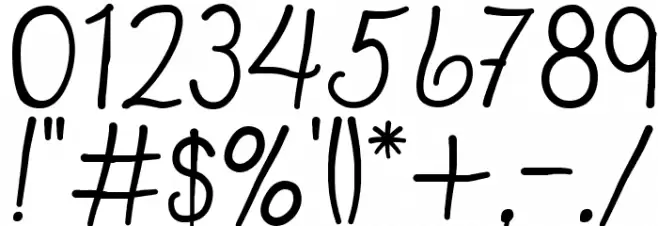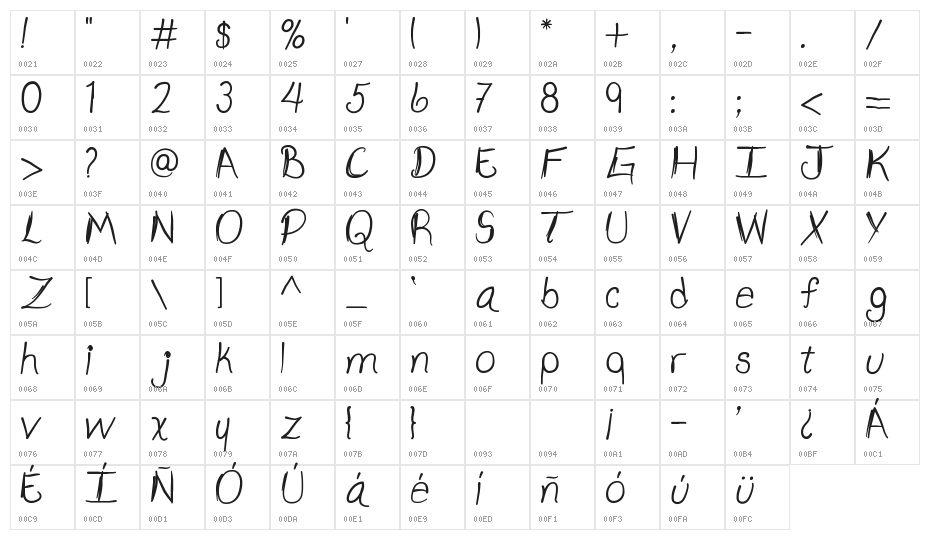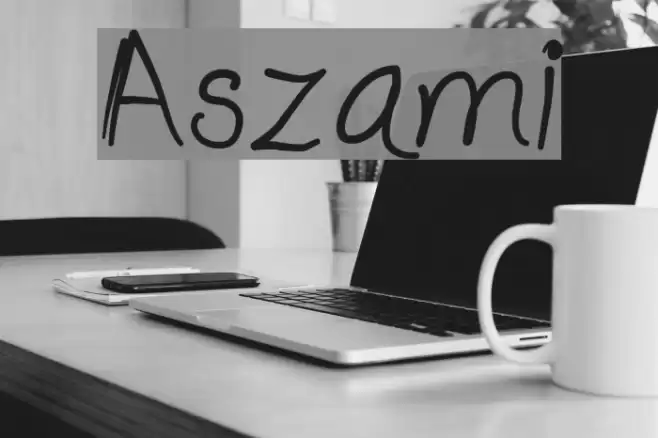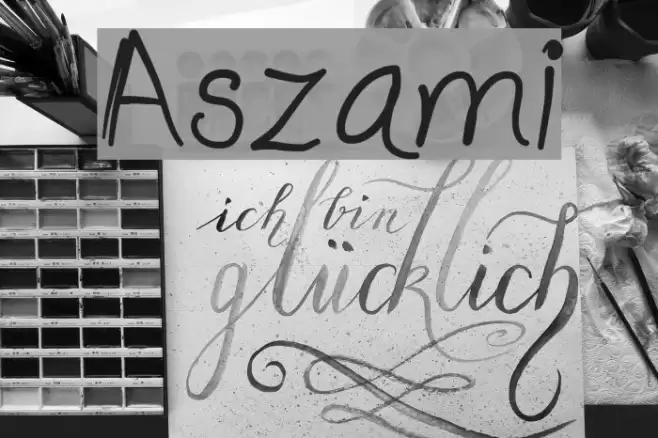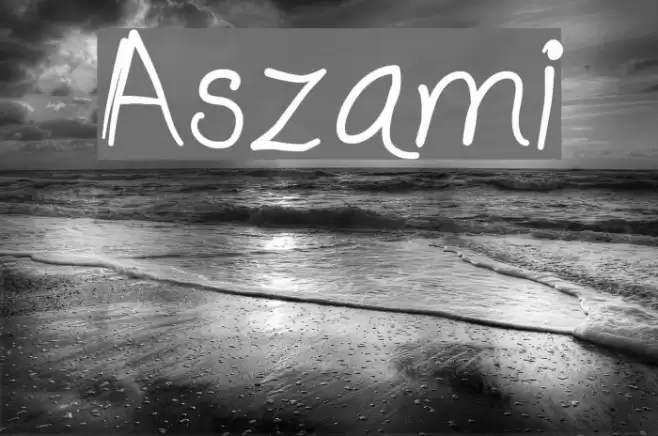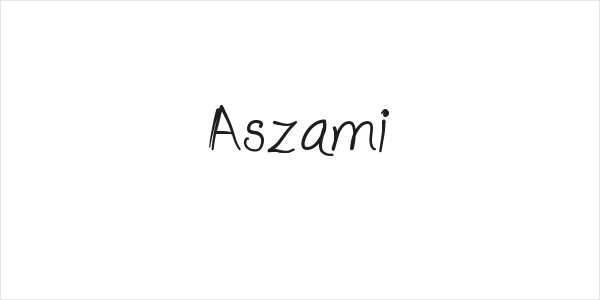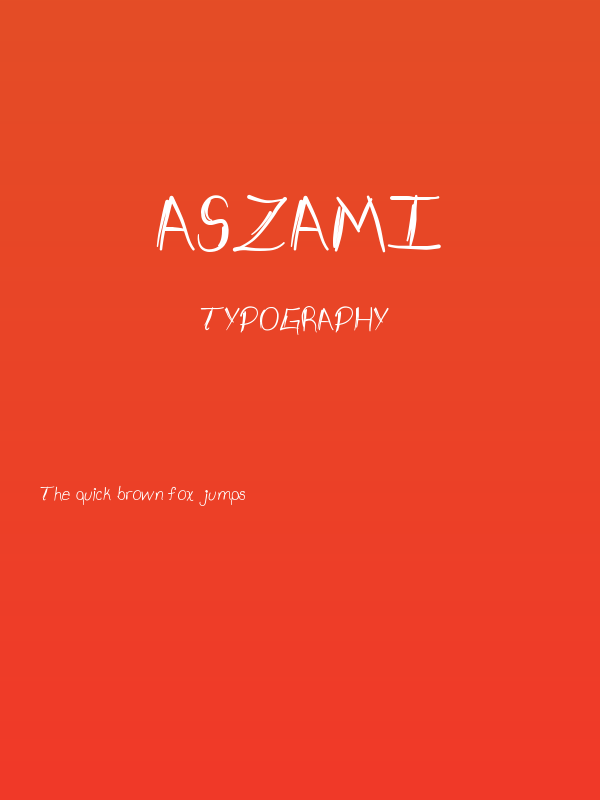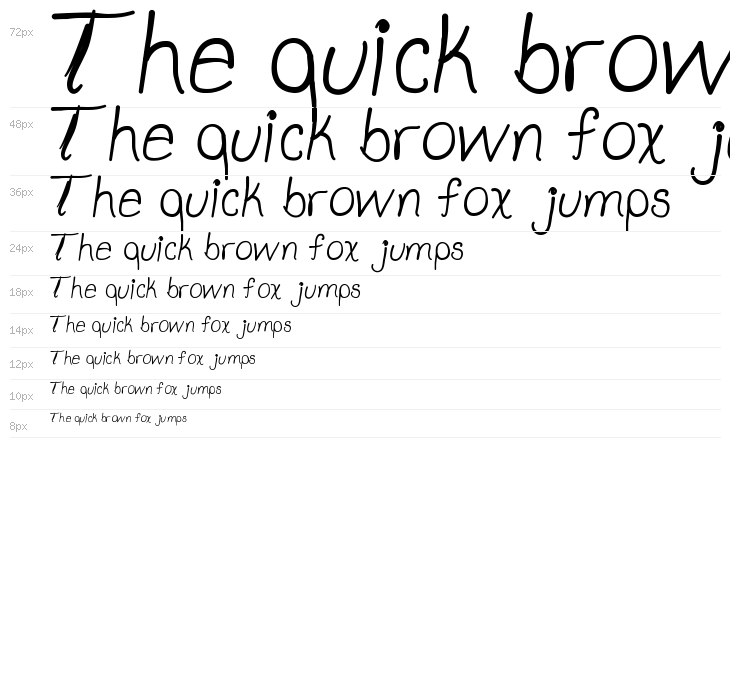
Aszami Font
Aszami Description
This font features a playful and whimsical design, characterized by its irregular strokes and casual style. The uppercase letters have a slightly uneven baseline, giving them a hand-drawn appearance. The lowercase letters follow a similar style, with rounded edges and a friendly, approachable look. The numerals are bold and easy to read, maintaining the playful theme. Special characters are included, each with unique, quirky details that add to the font's charm. Overall, this font exudes a sense of fun and creativity, making it ideal for projects that require a personal touch.